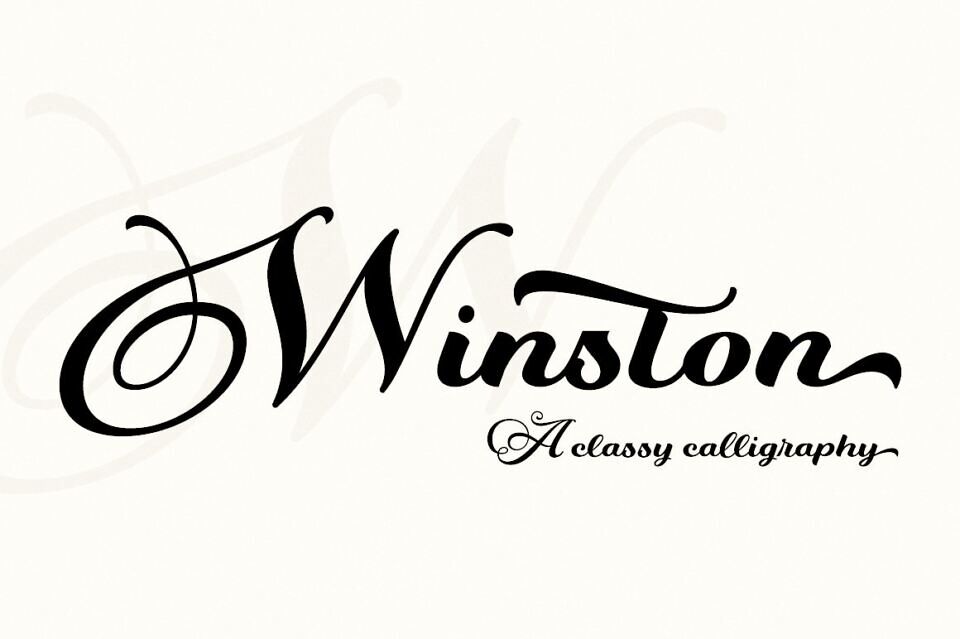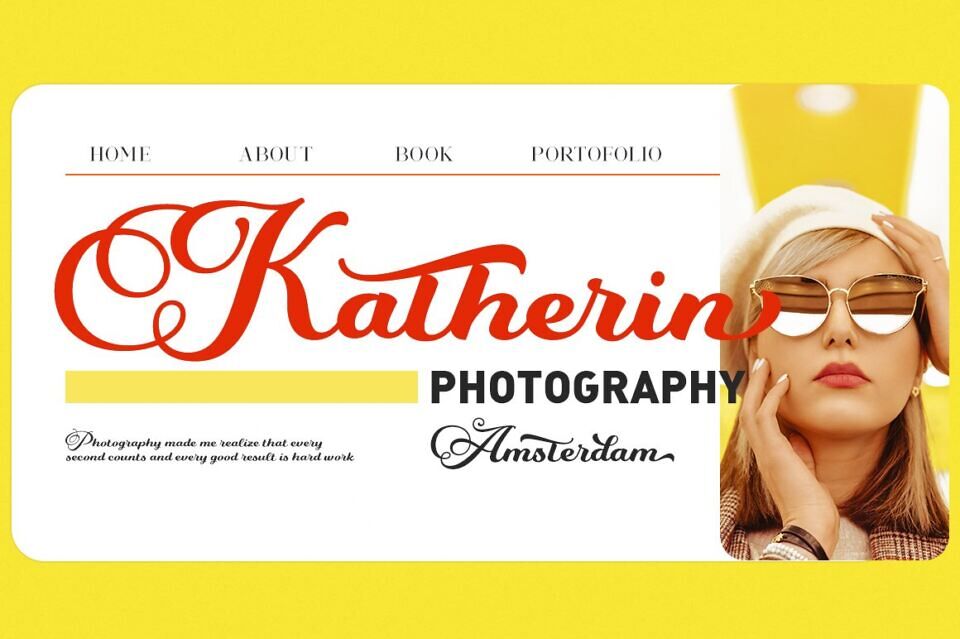
Winston is a stylish script classy font, described by an elegant touch, perfect for your favorite projects. Fall in love with its incredibly distinct and timeless style and use it to create spectacular designs!